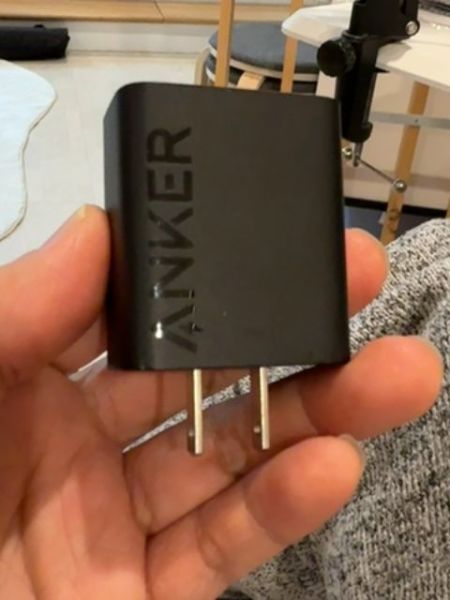
Anker Charger
A portable wall charger used to charge electronic devices such as smartphones, tablets, and other compatible gadgets.
2011
China
The typography on the charger features a modern sans-serif font, characterized by clean lines and a bold weight that enhances readability. The vertical orientation of the brand name 'Anker' adds a unique element to the design, setting it apart from standard horizontal text placements.
The charger has a sleek and compact design with a matte black finish. Its minimalist look is practical, making it easy to carry in bags or pockets without occupying much space.